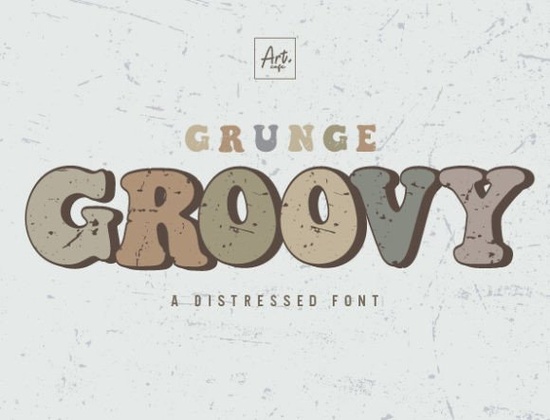
If you're working on a project that needs a little retro grit think concert posters, vintage T-shirt designs, or edgy branding the Grunge Groovy Font might be exactly what your creative toolkit is missing. This distressed typeface blends 1960s and 70s aesthetics with modern usability, giving your work an authentic throwback feel without looking dated. Whether you’re a print-on-demand seller crafting nostalgic merch or a small business owner designing eye-catching signage, Grunge Groovy adds character that clean fonts simply can’t replicate.
What makes Grunge Groovy stand out from other retro fonts?
Unlike generic “vintage” fonts that lean too polished or overly decorative, Grunge Groovy leans into imperfection. Its slightly uneven lines, subtle wear marks, and organic texture mimic hand-printed posters from the psychedelic era. That rawness helps your designs feel human and tactile ideal for projects where personality matters more than precision.
It pairs especially well with other expressive display fonts. For example, if you’re layering text over a textured background, consider combining it with something like the Junior Play Font for contrast, or balance its roughness with the structured nostalgia of the Greek Varsity Font. And if you’re building a full retro identity from logo to packaging you might explore complementary assets like the Vintage Monograms Pack to add period-appropriate flourishes.
Who should use this font (and where)?
Grunge Groovy shines in contexts where mood and atmosphere are key:
- Print-on-demand creators designing band tees, coffee mugs, or wall art with a 70s rock or boho vibe.
- Small businesses launching limited-edition product lines (think craft beer labels, vinyl record sleeves, or boutique apothecary packaging).
- Crafters and hobbyists making handmade cards, scrapbook elements, or DIY home decor with a lived-in aesthetic.
- Graphic designers working on music festival posters, album covers, or editorial layouts that call for visual storytelling.
It’s less suited for body text or minimalist branding but that’s by design. Display fonts like this are meant to make a statement in headlines, logos, or short phrases.
How does it compare to similar grunge or retro fonts?
Many distressed fonts either go too far (becoming hard to read) or not far enough (looking digitally “faked”). Grunge Groovy strikes a middle ground: legible at small sizes but full of character up close. If you enjoy its vibe but want alternatives with different eras or moods, check out the playful energy of the Space Invasion Font for sci-fi retro, or revisit the Grunge Groovy Font page to see real-world mockups and licensing details.
Tips for using Grunge Groovy effectively
To get the most out of this font without overwhelming your design:
- Use sparingly. One or two words in Grunge Groovy often have more impact than a full paragraph.
- Pair with neutral colors. Cream, olive green, burnt orange, or faded denim blues enhance its vintage tone without clashing.
- Add texture underneath. A subtle paper grain or ink bleed background reinforces the analog feel.
- Avoid ultra-modern elements. Sleek sans-serifs or neon gradients can undercut its authenticity.
Remember: the goal isn’t just to look old it’s to evoke a feeling. Grunge Groovy works best when it supports a story, not just fills space.
If your next project calls for warmth, rebellion, or a dash of disco-era cool, Grunge Groovy delivers without fuss. Just keep your layout simple, let the font breathe, and trust that a little imperfection goes a long way.